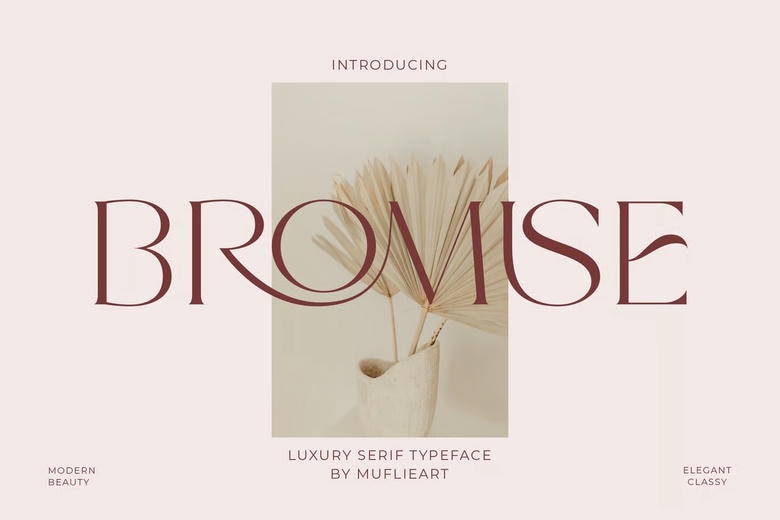
Bromise Font
Meet the recently released Bromise the lovely, gorgeous and contemporary Serif. Bromise comes with a cool, elegant, sleek style since it has a contemporary and minimal design. It can be used in websites, contemporary logos, branding, social media quotes, wedding stationery, magazines, and many others!
Bromise consists of exclusive and elegant capital letters A to Z and Bromise has also unique alternates hence turning Bromise into a beautiful font that can be tailored to different projects and tasks that you desire. Bromise is ideal with: logos, brands, wedding invitation, business cards, greeting cards, posters, magazines, social media, agenda prints, and websites.
Bromise Serif Font